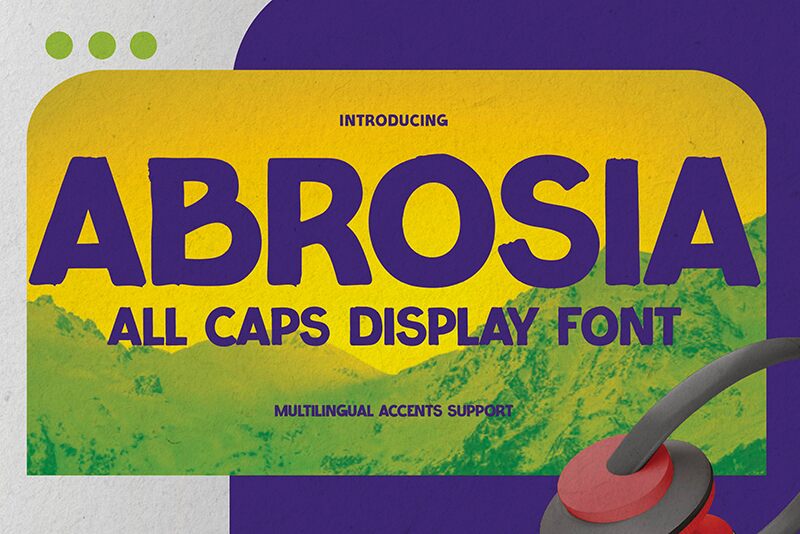
Abrosia
Abrosia, crafted by the renowned Gassstype, is not just a font-it's a statement piece for your creative canvas. With its bold display type and dramatic flair, Abrosia is the epitome of modern style fused with casual swiftness. Designed to command attention, this all caps font transforms any label or poster into an eye-catching centerpiece.
Each letter of Abrosia carries a textured uniqueness that mimics the fluidity and spontaneity of quick handwriting while maintaining an air of sophistication. Its versatility shines in projects that call for a touch of authenticity and personality-from branding endeavors to personal DIY projects.
Ideal for an array of applications such as packaging, greeting cards, websites, and photo overlays, Abrosia ensures your work stands out with its natural look and strong presence. Embrace the boldness; let Abrosia elevate your next project to new heights of contemporary design excellence.